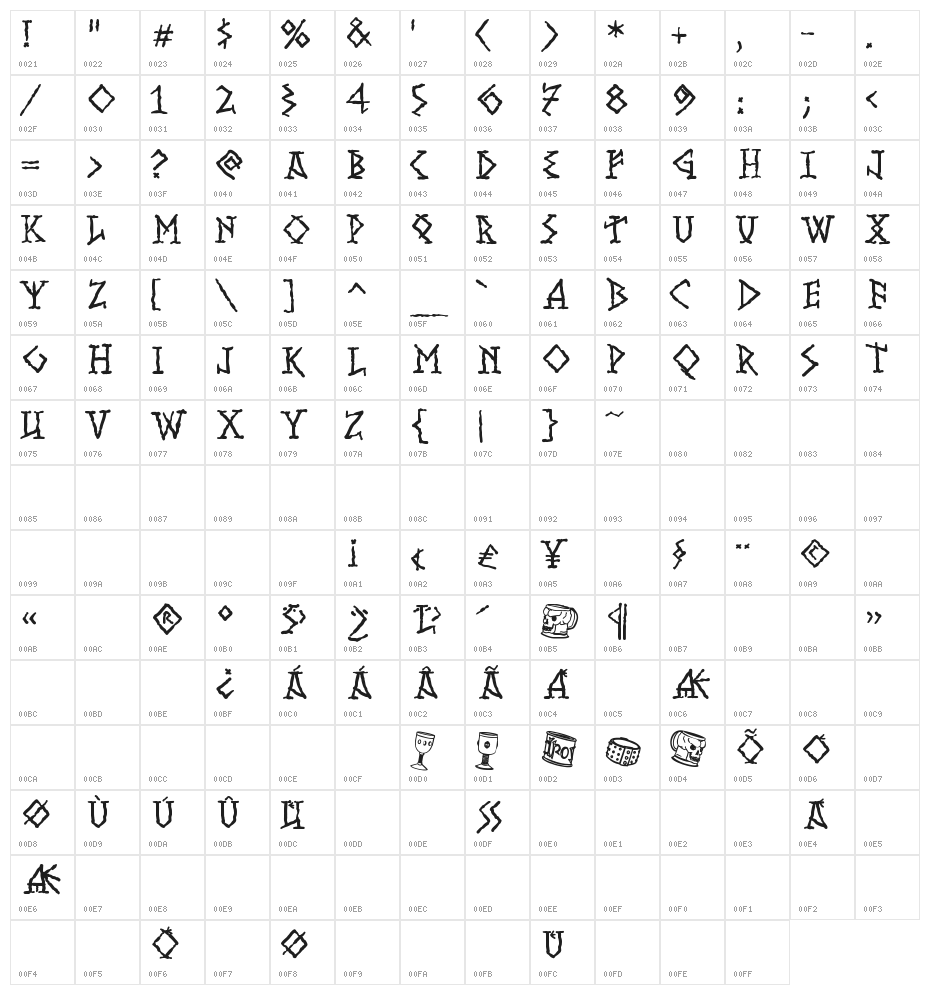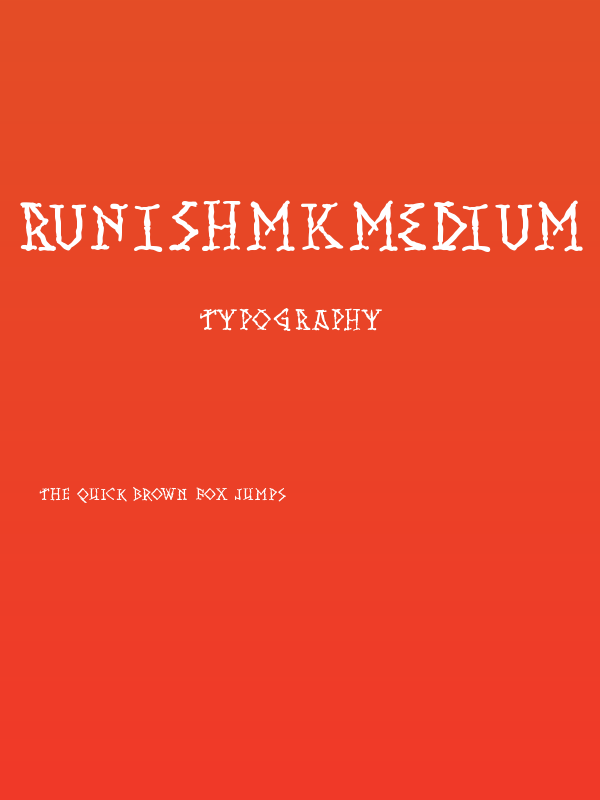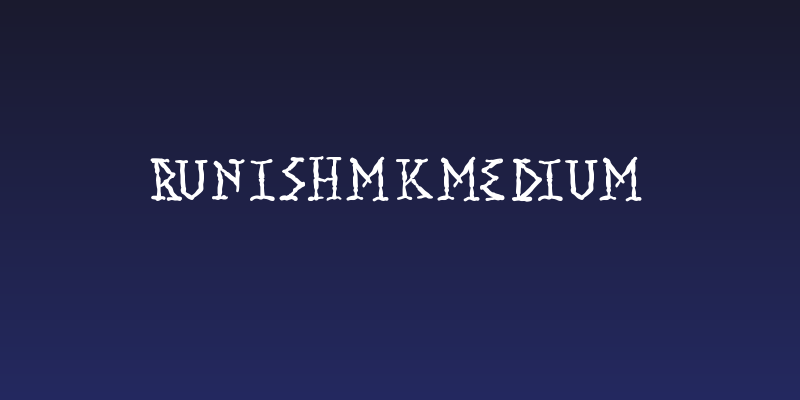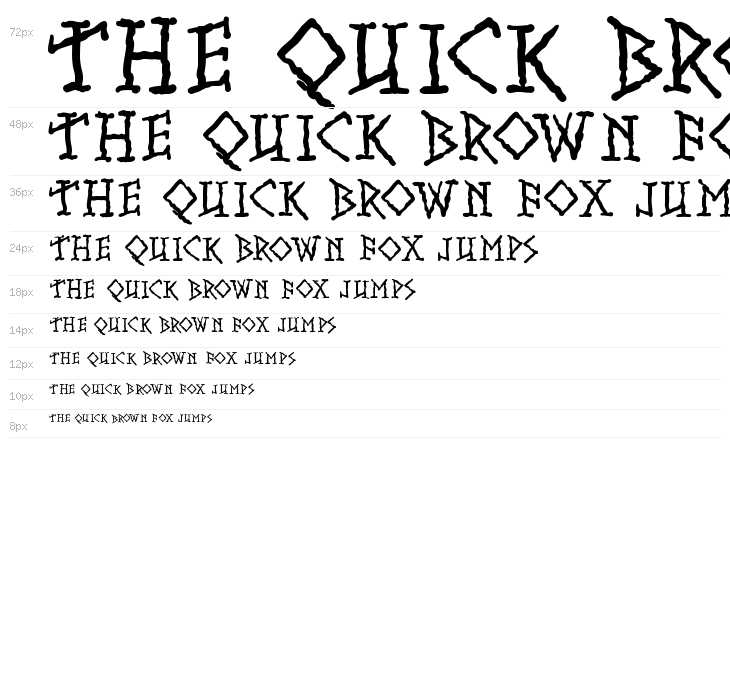
RunishMKMedium Font
RunishMKMedium Description
This font features a unique, hand-drawn style with a rugged, ancient appearance. The characters are irregular and jagged, resembling runic or tribal inscriptions. The strokes are uneven, giving it a raw, organic feel. The uppercase and lowercase letters maintain a consistent style, with sharp angles and a slightly distressed look. Numbers and special characters follow the same aesthetic, adding to the overall cohesive design. This font is perfect for projects that require a touch of mystery or an ancient, historical theme.
| Overall Style | Vintage |
| Use Case | Logos, Posters, Headlines |
| Proposed Projects | Ideal for fantasy book covers, historical themed posters, game design, and branding for products with a mystical or ancient theme. |